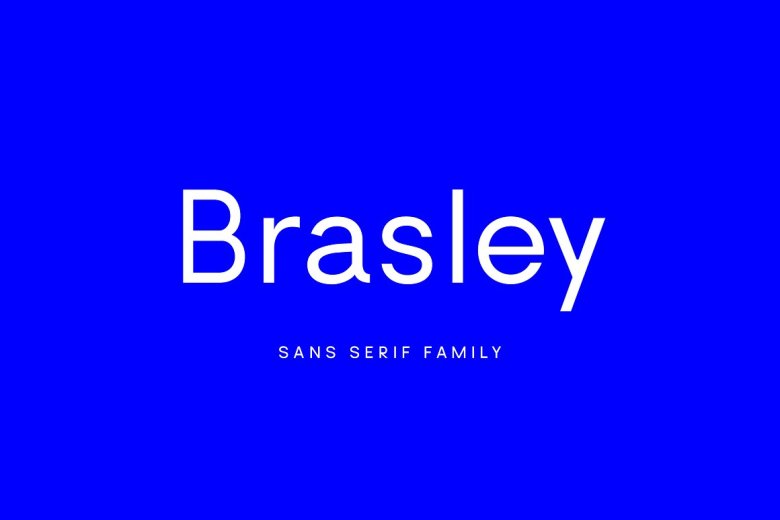
Brasley Font
Brasley Font is a geometric sans serif typeface designed by the Belgian designer Nicolas Desle. Spaced and adjusted to improve readability, Brasley is ready for a variety of projects and environments. Brasley has six weights, from, semi bold to regular and light thin, all with matching italics. It also features contextual alternates, ligatures, fractions arrows and shapes.
Brasley Sans Serif Font